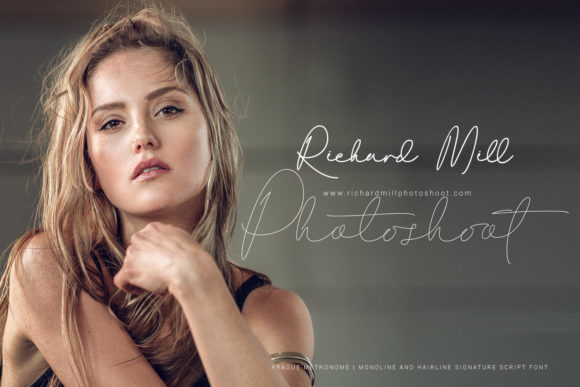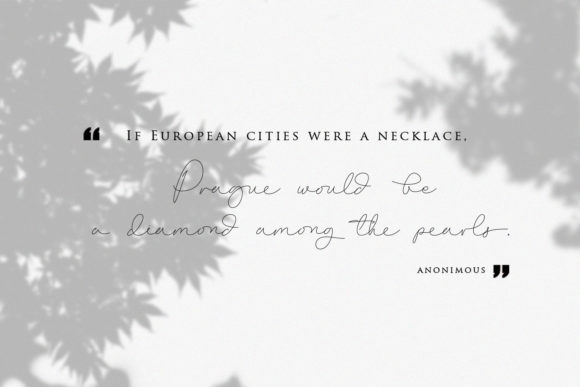
Prague Metronome Font
db-ku.com - Script & Handwritten -- Prague Metronome pays tribute to the stunning city of Prague and its rich history. Get inspired by this unique script!